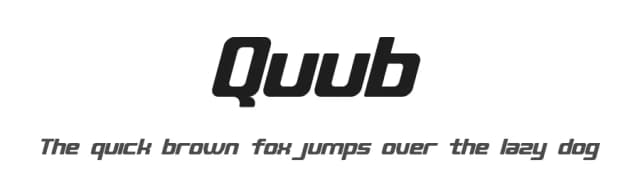
About Navine Font
Navine is a rectangular sans serif typeface with 3 widths, each with 9 uprights and the corresponding italics. Navine is crafted with powerful OpenType features, alternate glyphs, kerning pairs, superiors, inferiors, and much more. Navine blends beautifully in your creative designs.
| Designer | Abhishek Junghare |
Navine Font is a versatile sans-serif font that works for both headings and body text. Pair it with a contrasting serif or slab serif font to add visual interest and a clear distinction between titles and body copy.